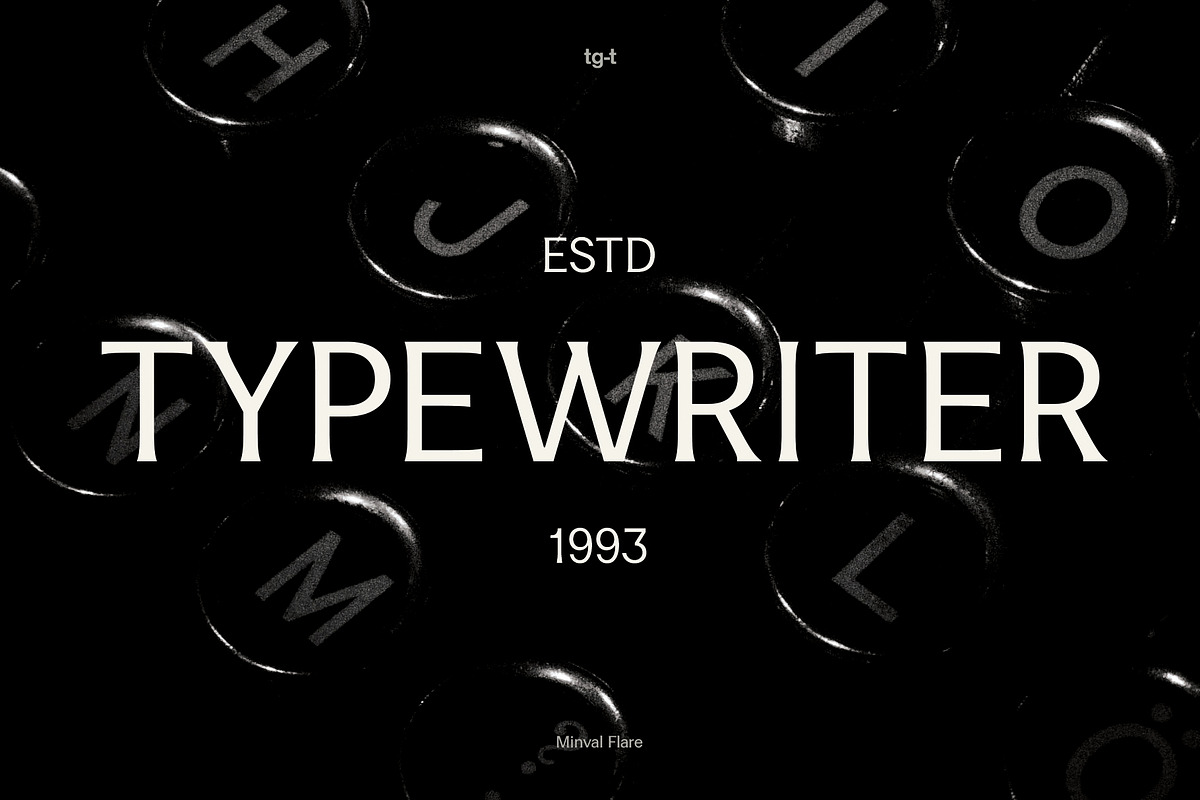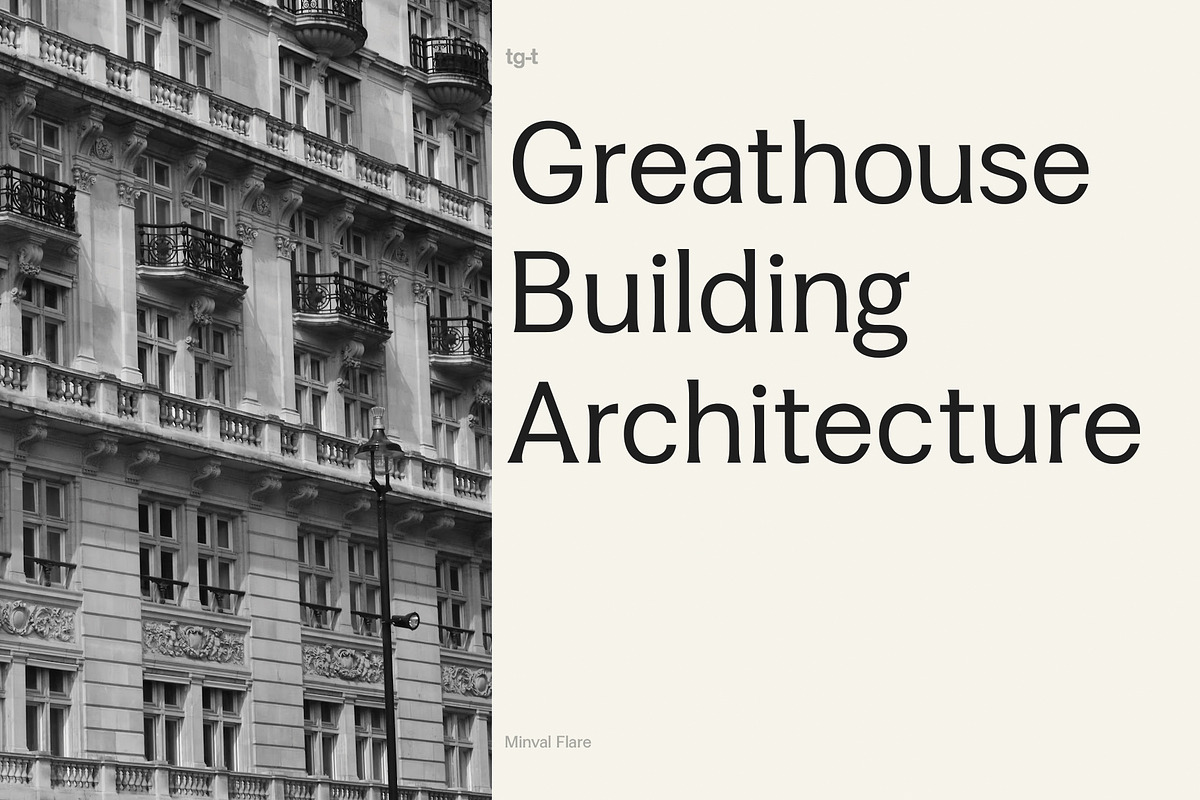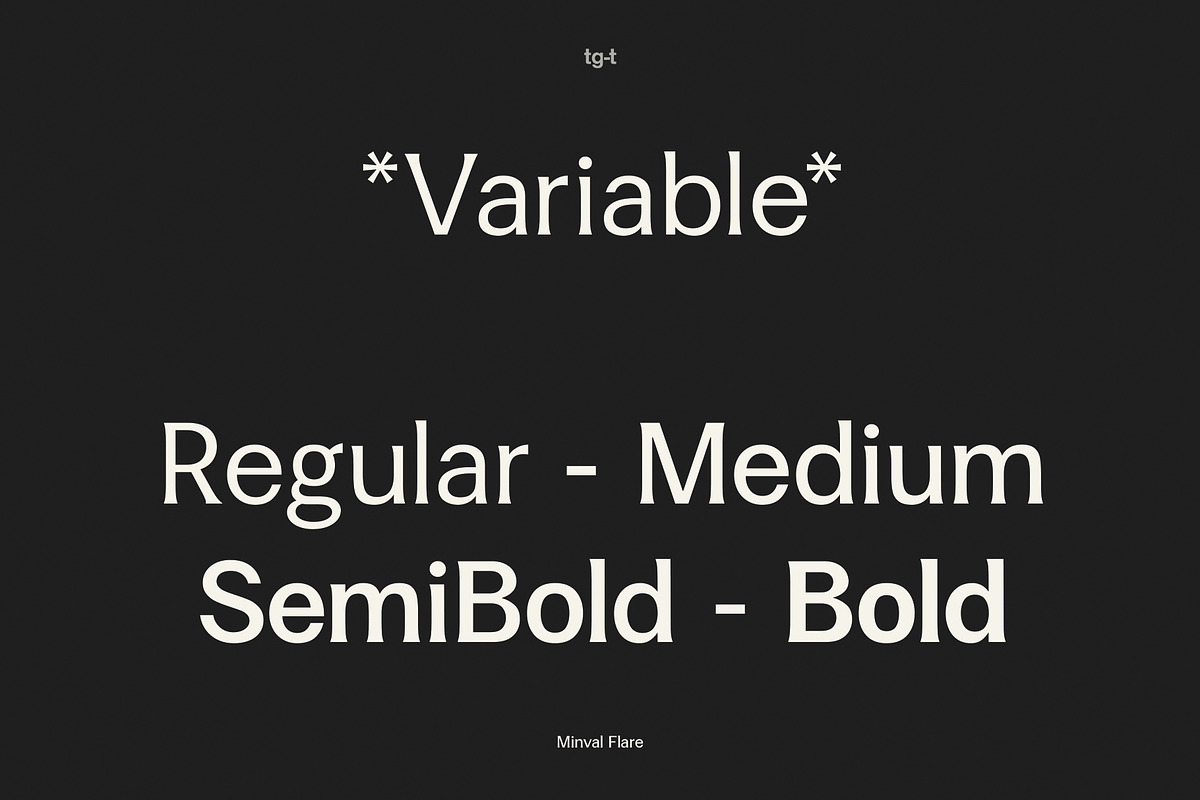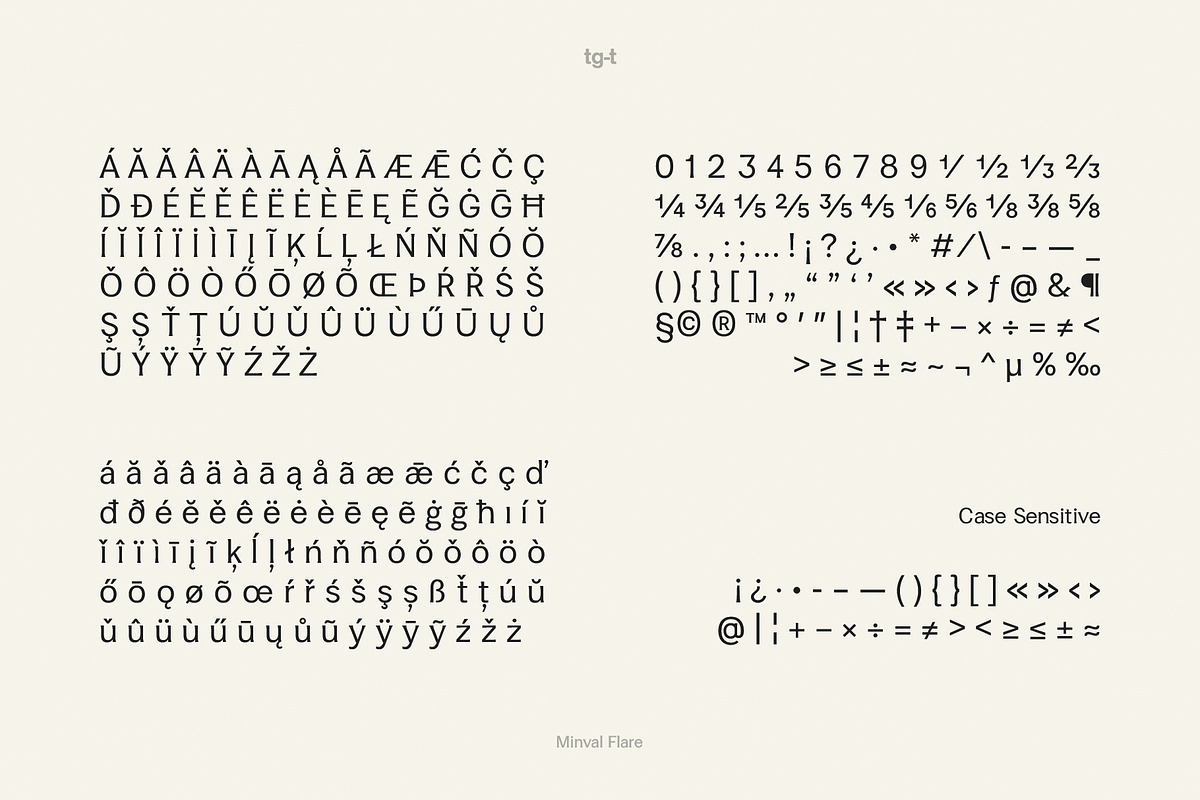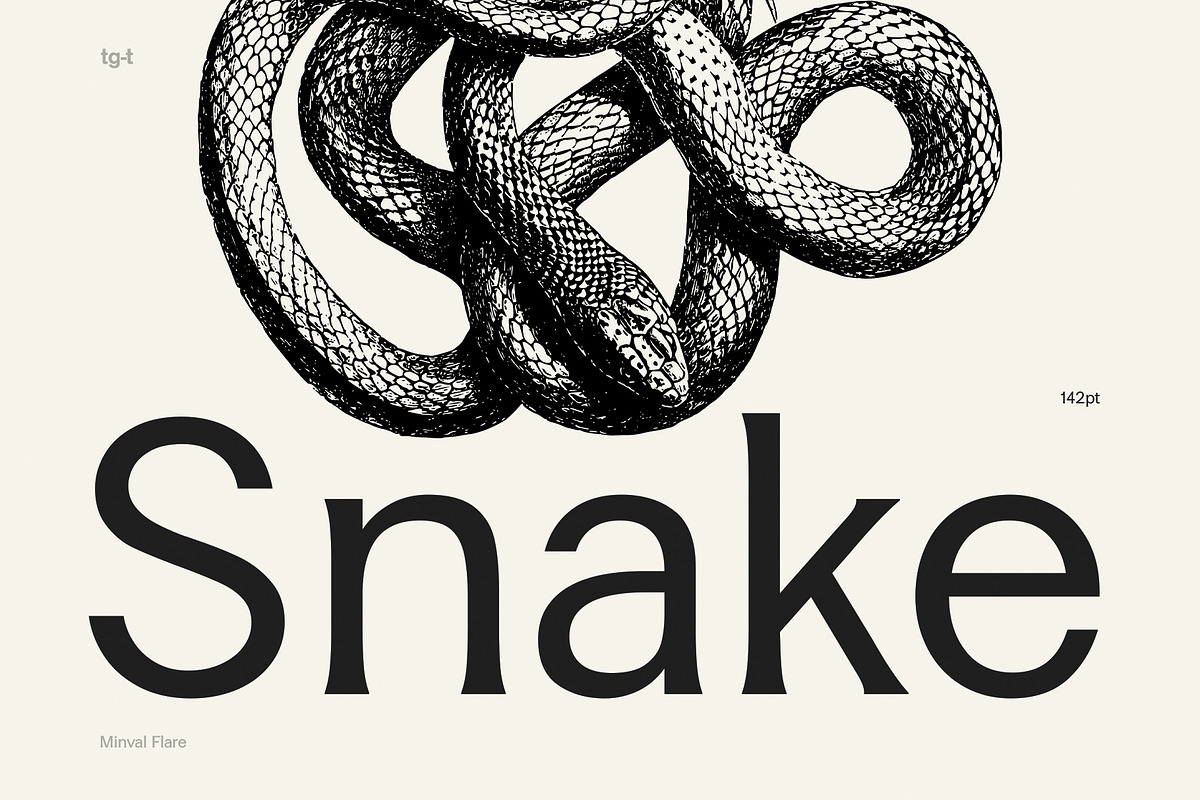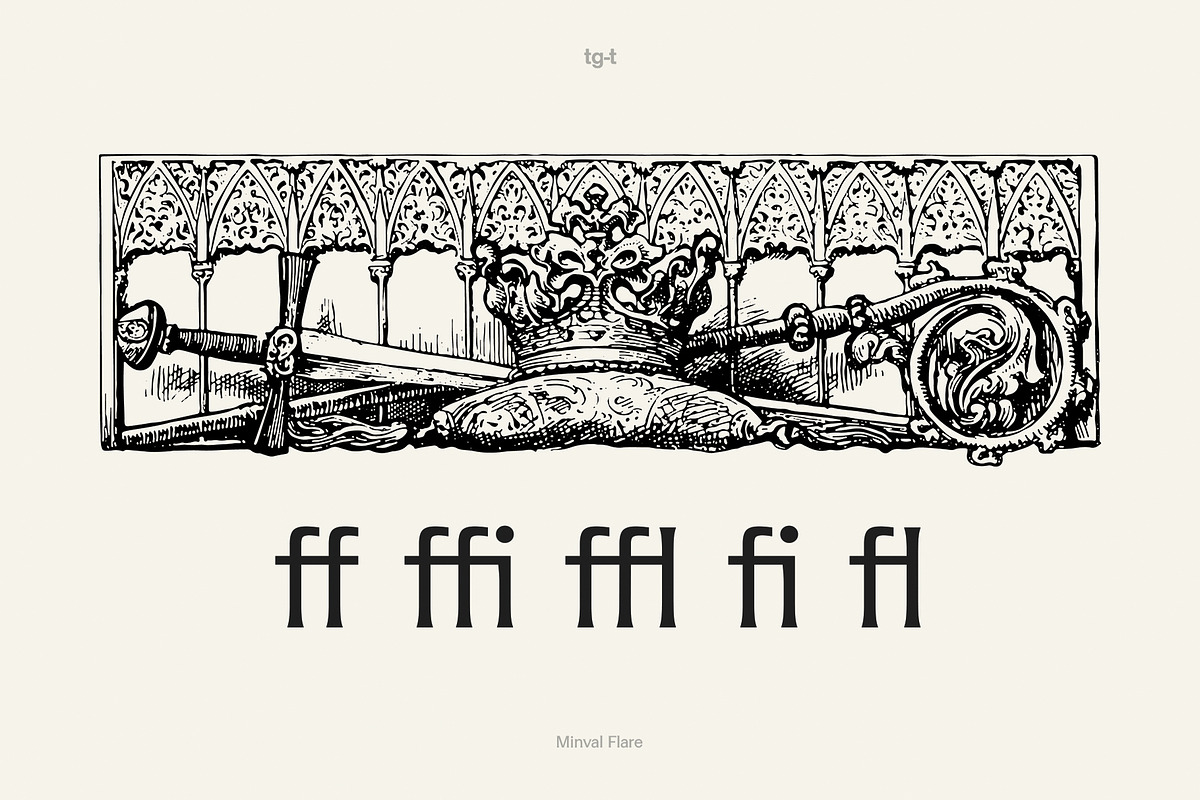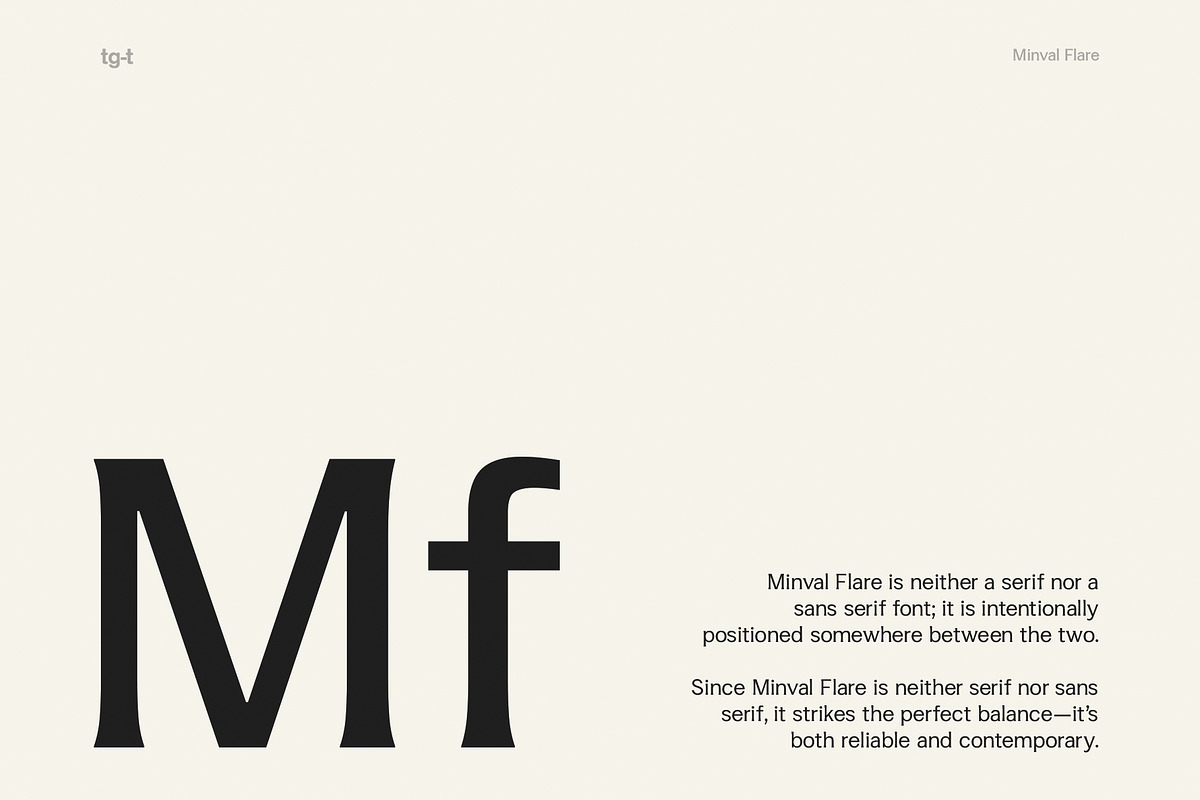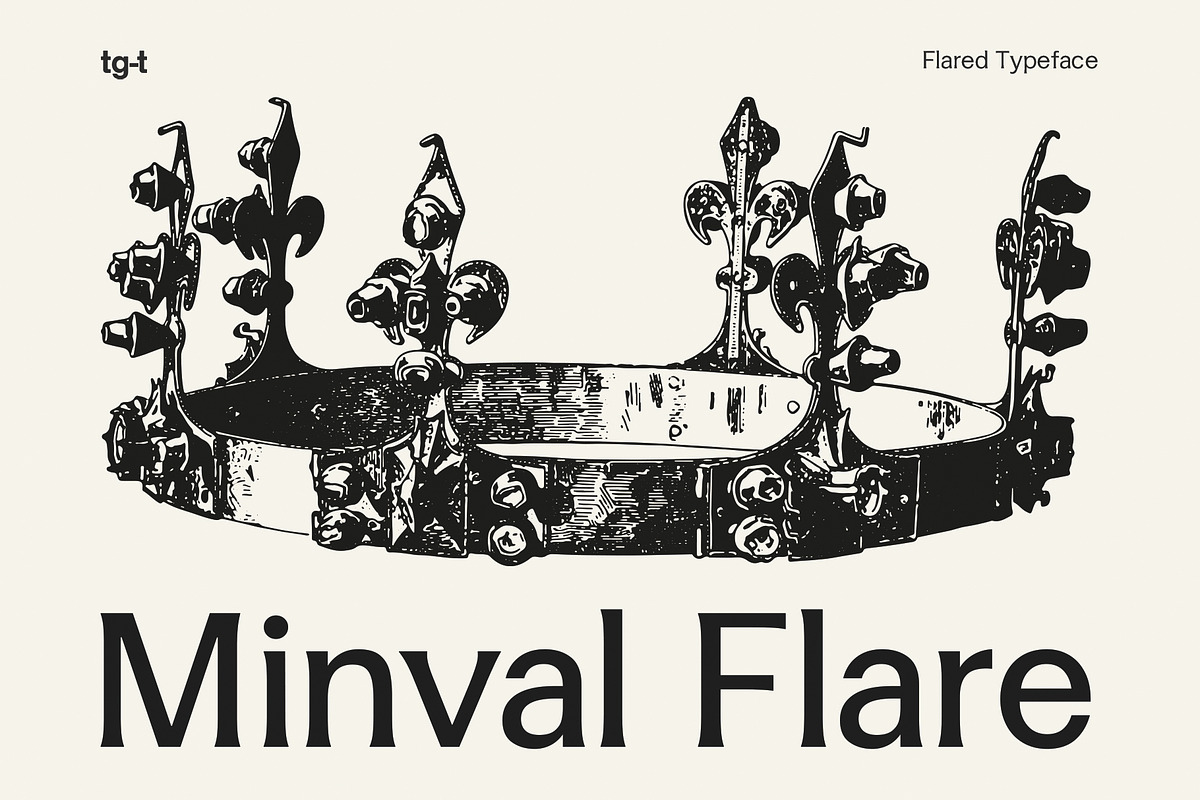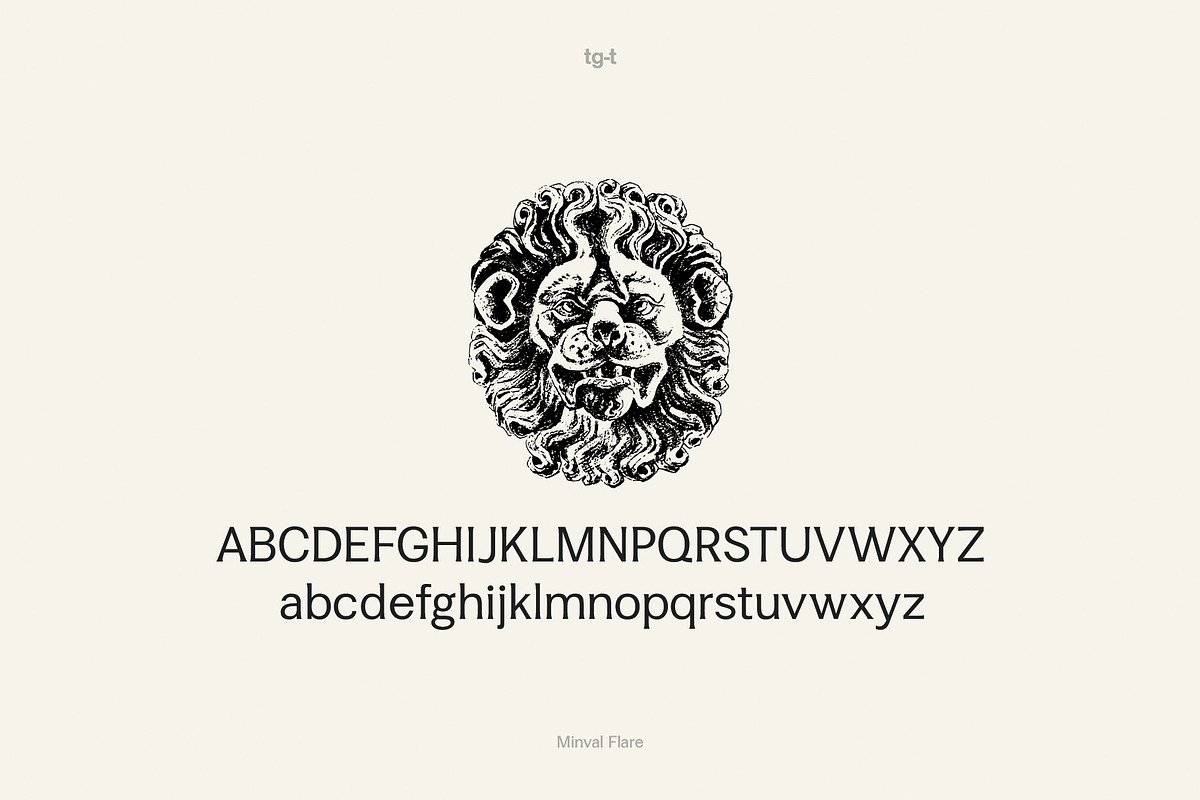
Minval Flare | Modern Flare Font
Minval Flare is a refined modern serif typeface designed for elegant branding, editorial design, luxury packaging, and sophisticated digital experiences. Combining clean contemporary proportions with subtle flared terminals, it delivers a timeless yet distinctive personality that works beautifully in both large headlines and readable body text.
Built as a Variable Font, Minval Flare allows smooth weight transitions from Regular to Bold, giving designers complete creative flexibility while keeping projects lightweight and organized.
Whether you're creating premium logos, fashion branding, magazine layouts, beauty packaging, websites, or social media content, Minval Flare adapts effortlessly to both print and screen.
• Luxury Branding • Editorial Design • Fashion Magazines • Logo Design • Packaging Design • Beauty & Cosmetics • Interior & Architecture Brands • Website Typography • Creative Portfolios • Premium Social Media Graphics
Variable Font
Elegant Modern Serif
Flared Terminal Details
High Readability
Latin Extended Language Support
OpenType Features